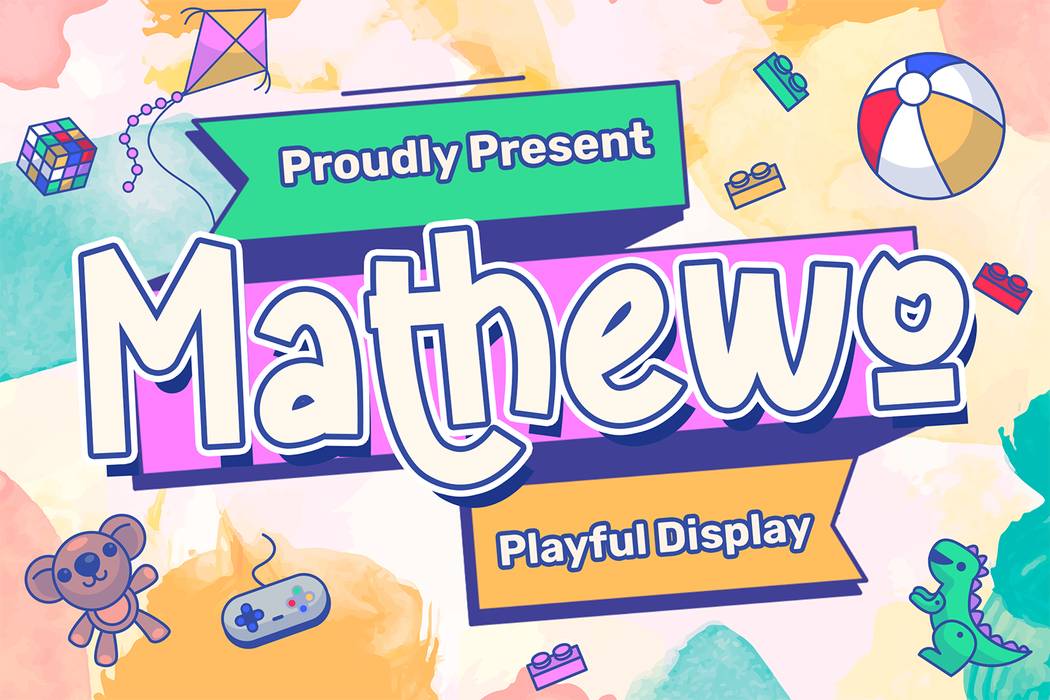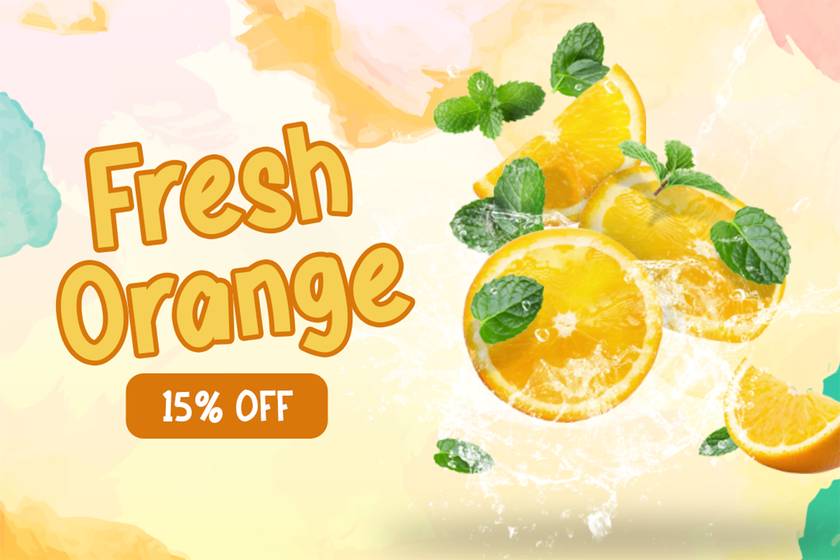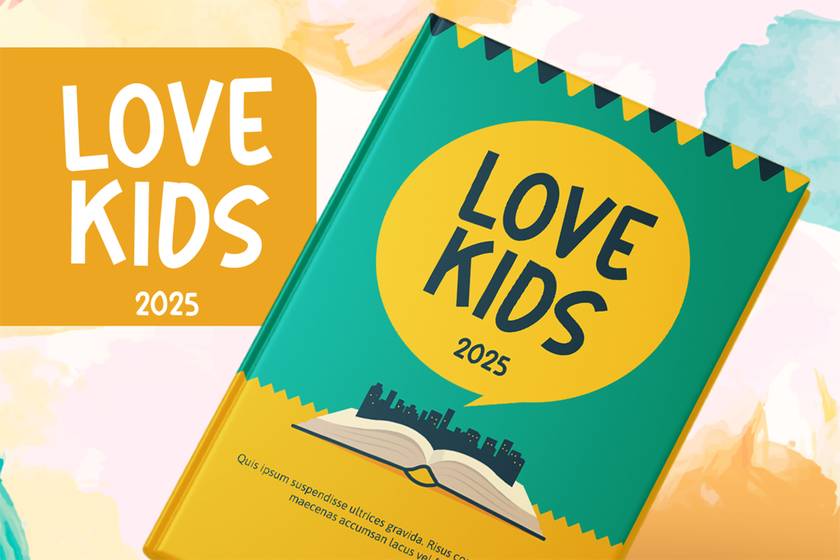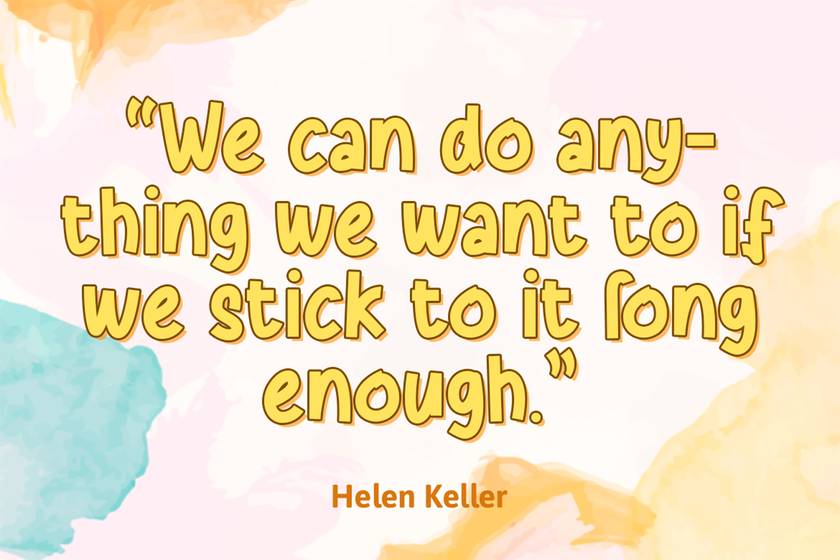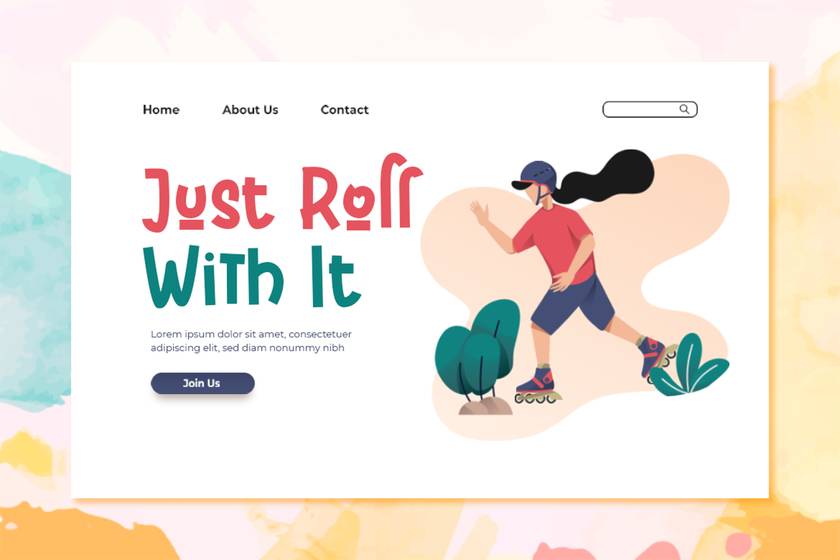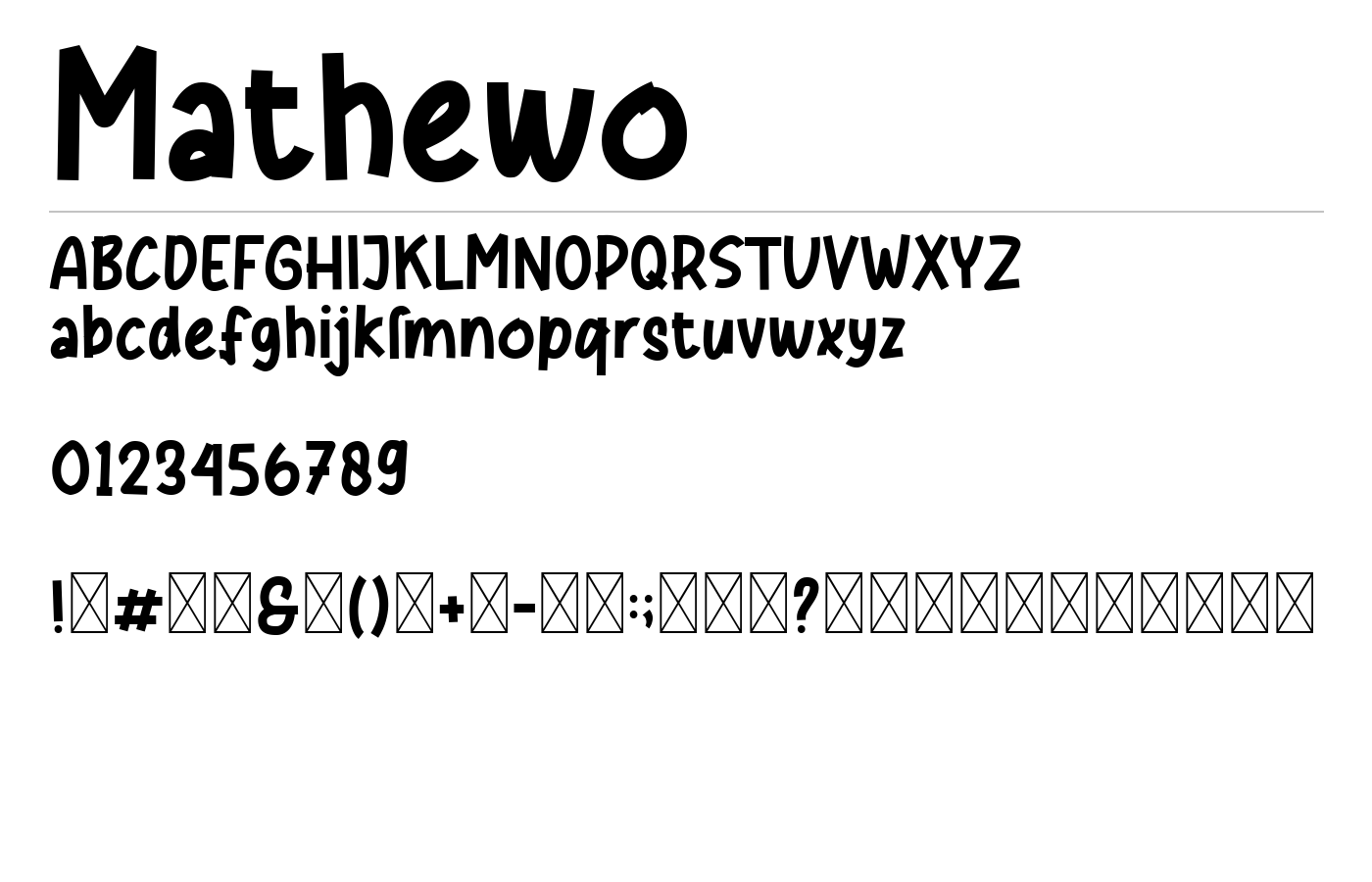
Mathewo Playful Font is a bold, quirky sans serif typeface with an informal and friendly personality. Its irregular letter shapes and slightly uneven baseline give it a hand-drawn, joyful feel, making it perfect for playful branding, children's materials, and casual headlines. This font works best where a fun and approachable vibe is desired, adding charm and character to any creative project.
Mathewo Playful Font
About Mathewo Playful Font
| Font family | Mathewo Playful Font |